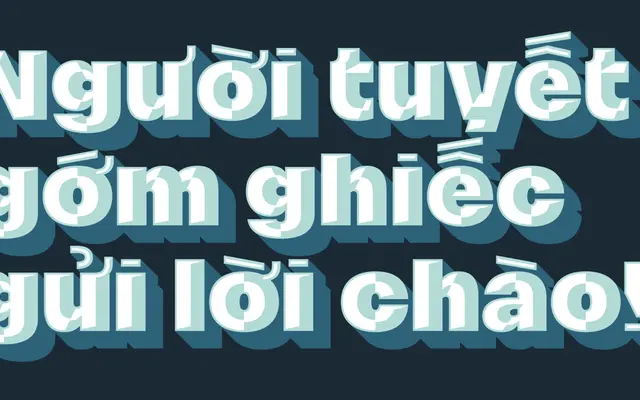
Nitti Mostro
Bold Monday · Pieter van Rosmalen, Aleksandra Samuļenkova, Yanek Iontef · 2015
An eighteen-style layerable display grotesque spun off from Nitti Grotesk, built for posters, signage and screen effects with sub-families covering Comic, Disco and Stencil treatments.
Built on the heaviest weights of Nitti Grotesk, this family strips ascenders and descenders short and tightens letter fit to maximise impact at large sizes. The eighteen styles are organised into four sub-families — Mostro, Comic, Disco and Stencil — each designed to layer together for colour, shading and animation effects. Nine monster pictograms drawn by Dirk Uhlenbrock round out the package, fitting it squarely in the 'Italo-American Grotesque' lineage Bold Monday has built around the Nitti series.
Derived from the heaviest weights of Nitti Grotesk and designed explicitly for display use with layerable styles including Solid, Shadow, Inline, Gradient, Chrome, Disco and Stencil variants; sits firmly in the display category as a decorative, effect-driven grotesque family.